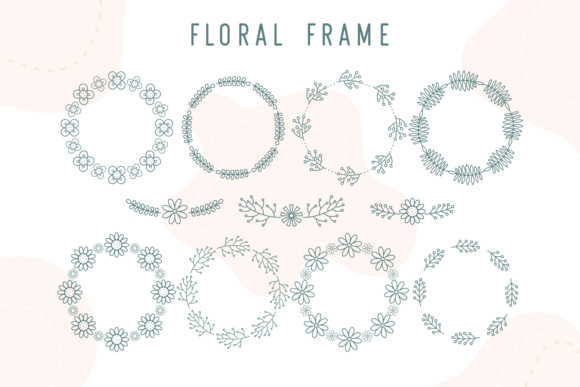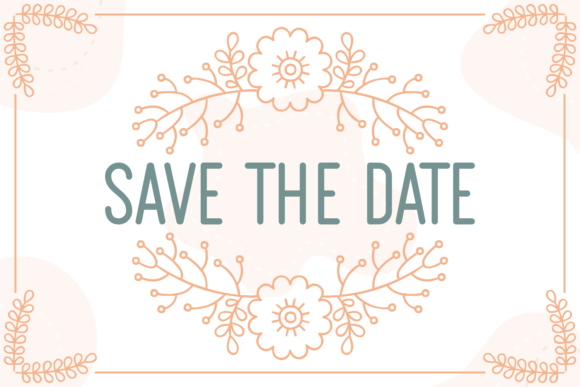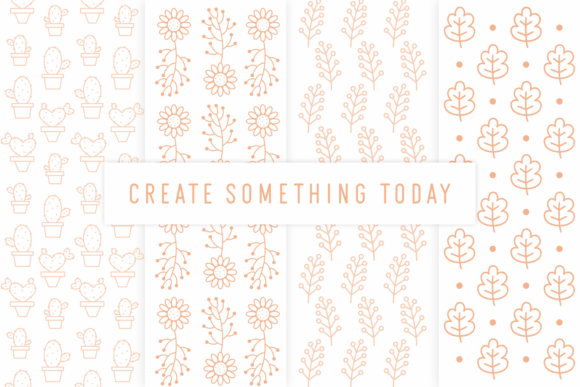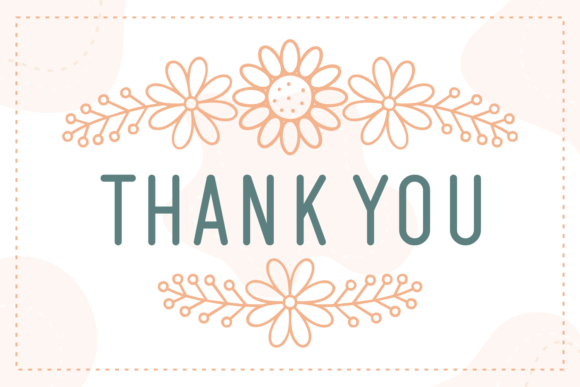
Introducing Floria Font: Elevate Your Designs with this Stunning Dingbats Font
Are you tired of using the same old fonts in your designs? Do you want to add a touch of elegance and whimsy to your creations? Look no further than Floria Font, a beautiful and unique dingbats font that is sure to take your designs to the next level. In this article, we’ll explore the features and benefits of Floria Font, and show you how it can embellish each of your creations and bring your designs to life.
What is Floria Font?
Floria Font is a dingbats font that is designed to add a touch of beauty and sophistication to your designs. Dingbats fonts are a type of font that features decorative symbols, such as flowers, leaves, and other ornaments, rather than traditional letterforms. Floria Font is a unique and carefully crafted dingbats font that features a wide range of beautiful and intricate designs, including flowers, foliage, and other natural elements.
Features of Floria Font
So, what makes Floria Font so special? Here are just a few of its key features:
- Unique and intricate designs: Floria Font features a wide range of beautiful and intricate designs, including flowers, foliage, and other natural elements.
- High-quality graphics: Each symbol in Floria Font is carefully crafted to ensure that it is high-quality and looks great in any design.
- Versatile: Floria Font can be used in a wide range of designs, from digital projects to print materials.
- Add a touch of elegance to your designs: Floria Font is the perfect way to add a touch of elegance and sophistication to your designs.
- Stand out from the crowd: With its unique and intricate designs, Floria Font is sure to help your designs stand out from the crowd.
- Enhance your creativity: Floria Font is a versatile font that can be used in a wide range of designs, allowing you to express your creativity and bring your ideas to life.
Design Ideas Using Floria Font
So, how can you use Floria Font in your designs? Here are a few ideas to get you started:
- Wedding and event designs: Use Floria Font to add a touch of elegance and sophistication to wedding and event designs, such as invitations, programs, and decorations.
- Digital projects: Use Floria Font to add a touch of whimsy and creativity to digital projects, such as social media graphics, blog posts, and email newsletters.
- Print materials: Use Floria Font to add a touch of elegance and sophistication to print materials, such as brochures, flyers, and posters.
- Crafting and scrapbooking: Use Floria Font to add a touch of personality and creativity to crafting and scrapbooking projects.
In conclusion, Floria Font is a beautiful and unique dingbats font that is sure to embellish each of your creations and bring your designs to life. With its intricate designs, high-quality graphics, and ease of use, Floria Font is the perfect addition to any designer’s fonts repertoire. Whether you’re a professional designer or a crafty hobbyist, Floria Font is sure to inspire your creativity and take your designs to the next level.